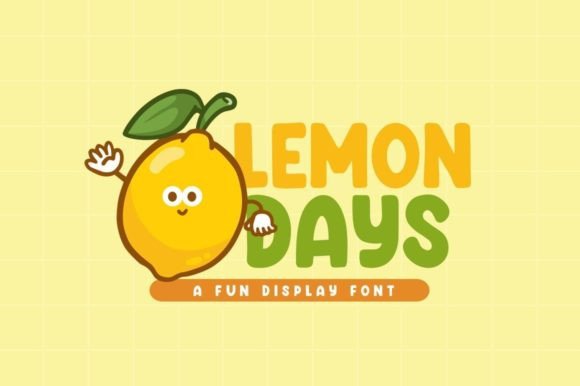
Unlock the Gateway to Happiness: Embark on a Joyous Journey with Lemon Days Font
In a world saturated with monotony, Lemon Days Font emerges as a beacon of cheer, inviting you to inject a burst of vibrancy into your creative endeavors. This captivating display font, crafted by the ingenious si.jalembe, is a symphony of delight, meticulously designed to evoke feelings of joy, optimism, and lightheartedness.
With its playful curves and cheerful strokes, Lemon Days Font possesses an irresistible charm that instantly captivates the senses. Its distinct character adds a touch of whimsy and wonder to any project, making it the ideal choice for designs that seek to spread happiness and positivity.
Immerse yourself in a world of limitless creativity as you explore the versatile nature of Lemon Days Font. Whether you're crafting cheerful greeting cards, designing eye-catching posters, or creating enchanting children's stories, this font effortlessly adapts to your vision, adding a unique touch of charm and playfulness.
Picture this: a vibrant invitation adorned with the cheerful characters of Lemon Days Font, promising an unforgettable celebration. Or, imagine a delightful children's book, where the playful letters dance across the pages, bringing beloved characters to life. The possibilities are endless, as Lemon Days Font becomes your trusted companion in creating designs that spark joy and captivate hearts.
Join the growing community of designers and artists who have embraced the magic of Lemon Days Font, transforming their creative projects into captivating expressions of happiness. With its infectious energy and playful spirit, this font has the power to transform the ordinary into the extraordinary, leaving an indelible mark on your audience.
Embrace the sunshine, spread joy, and embark on a creative adventure like never before with Lemon Days Font. Let your imagination soar as you create designs that radiate happiness and leave a lasting impression. The journey to a brighter creative future begins now, with Lemon Days Font as your guiding light.